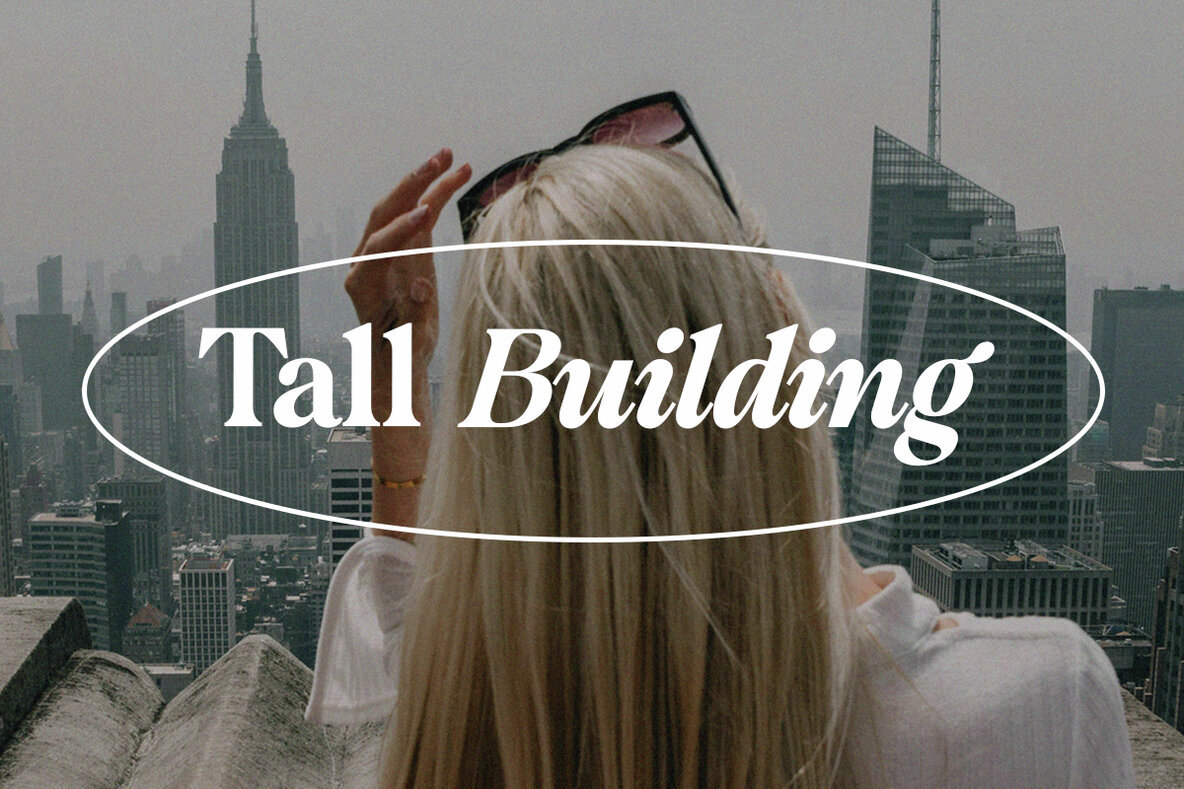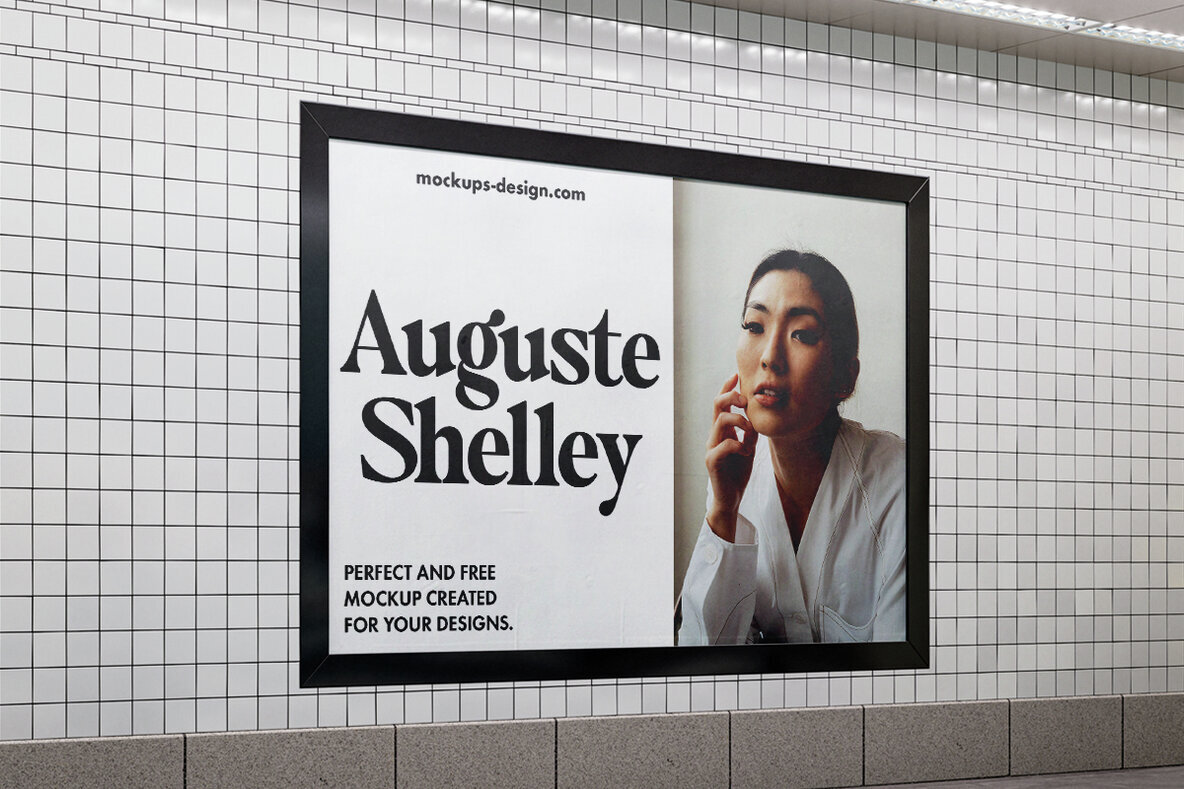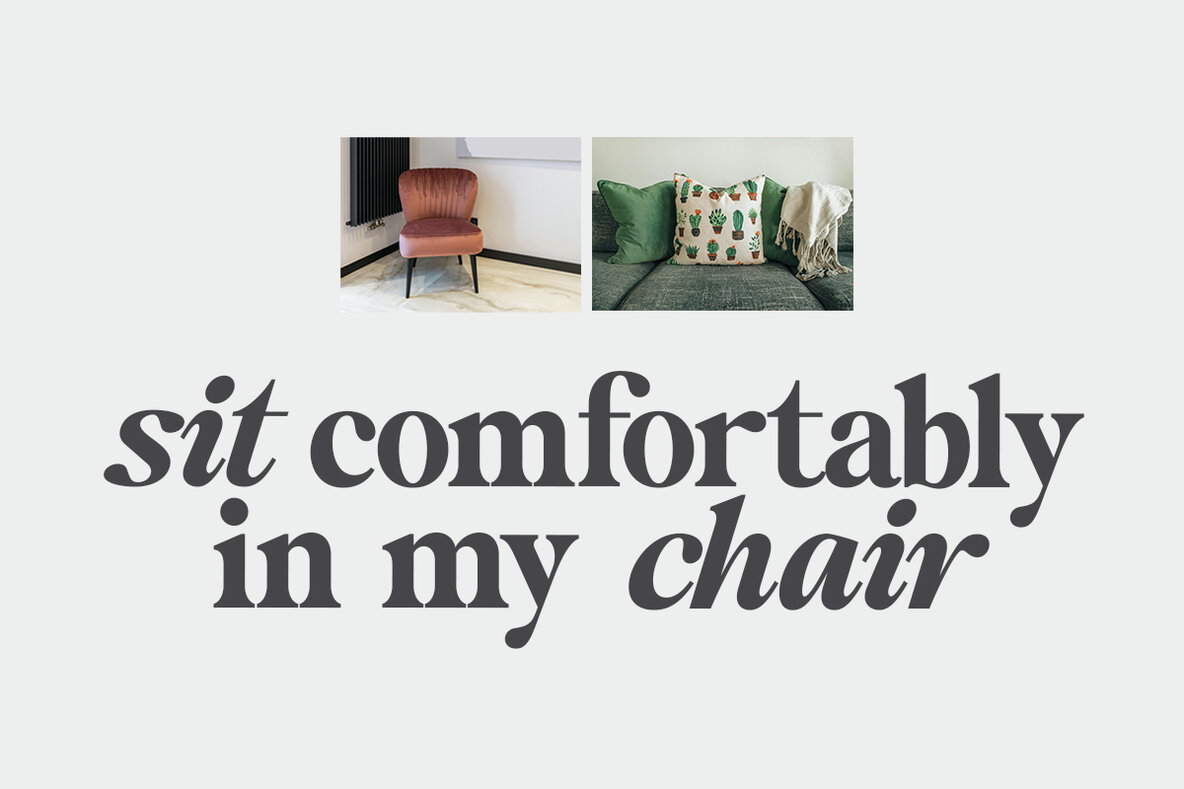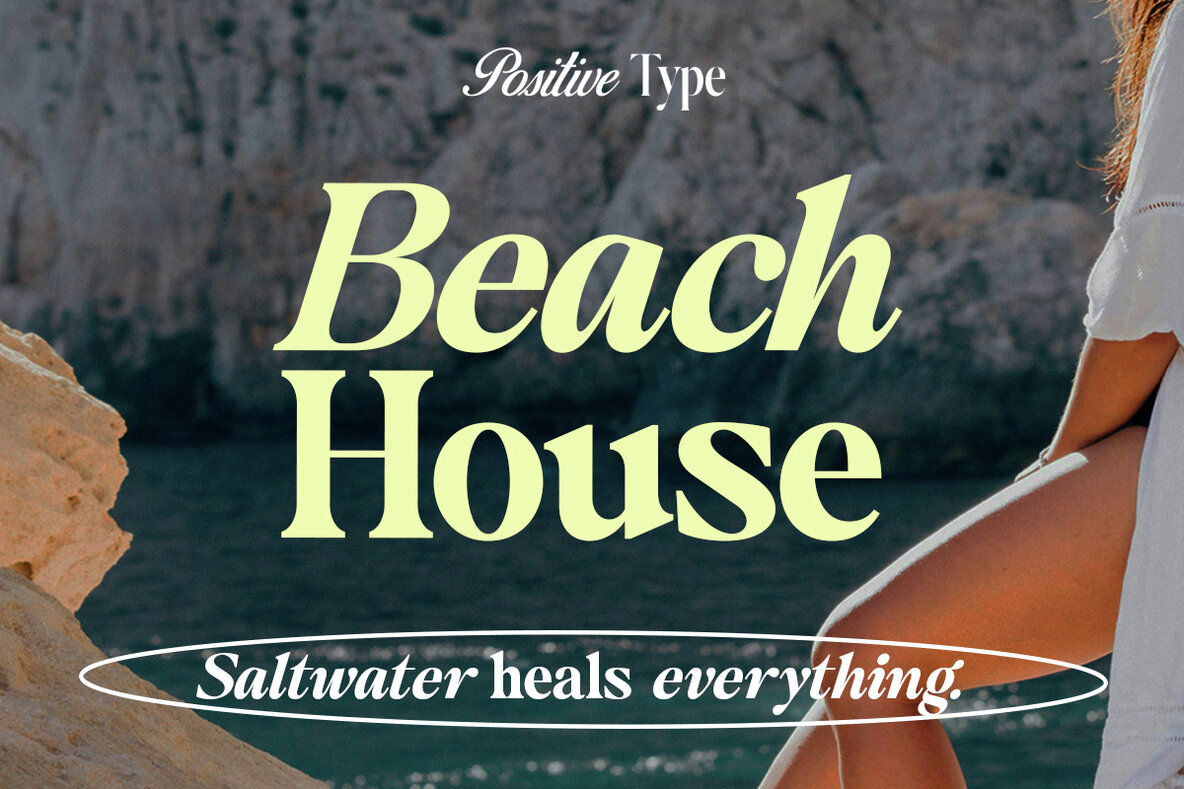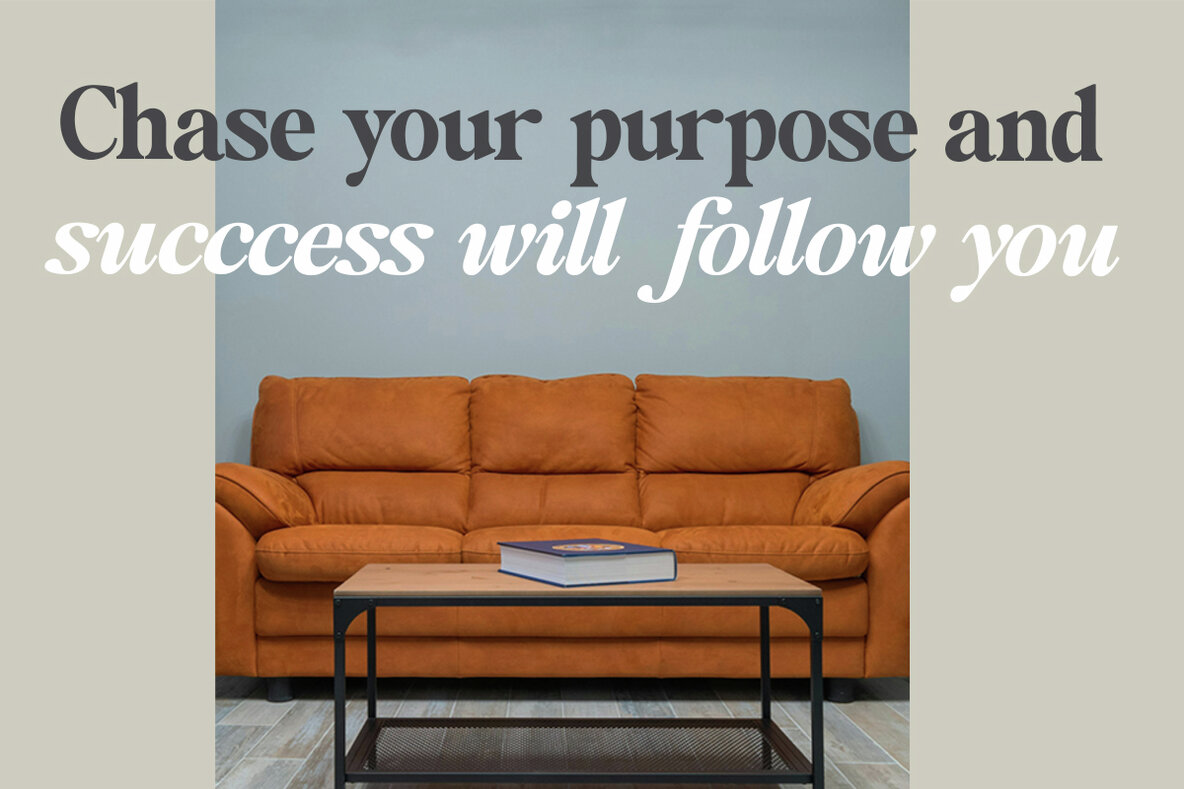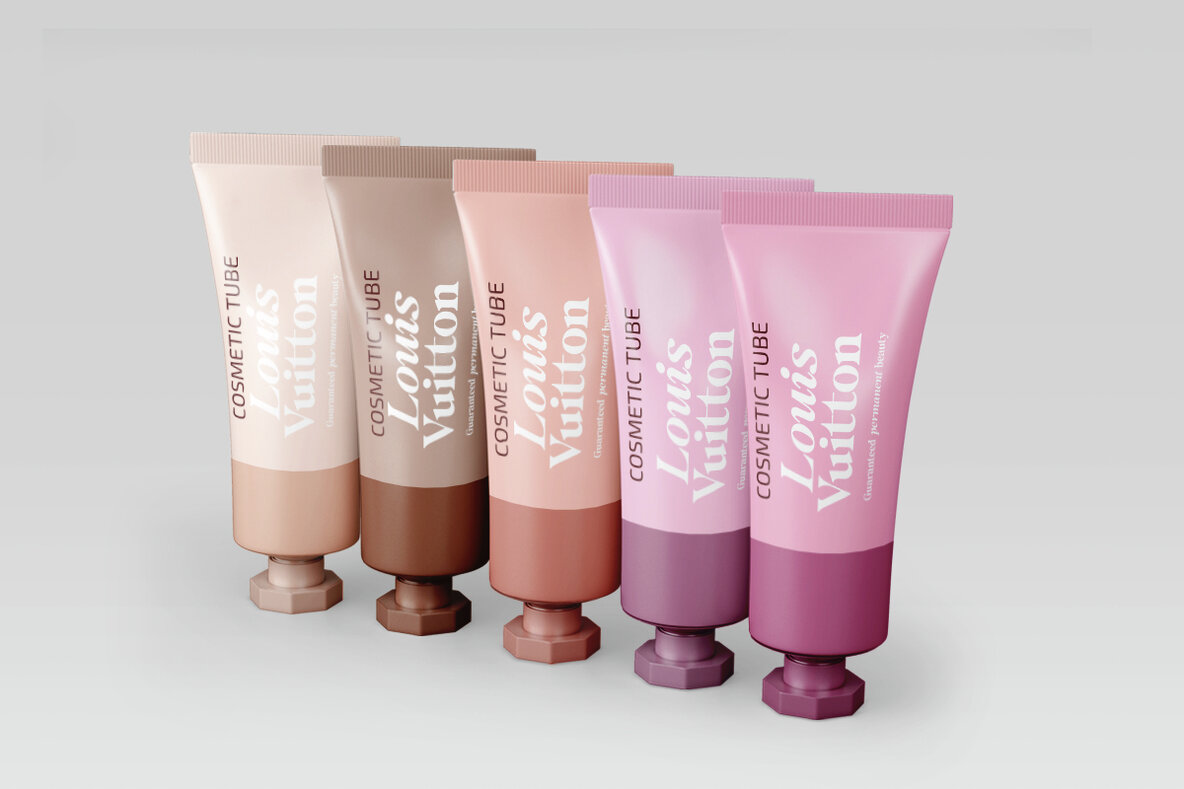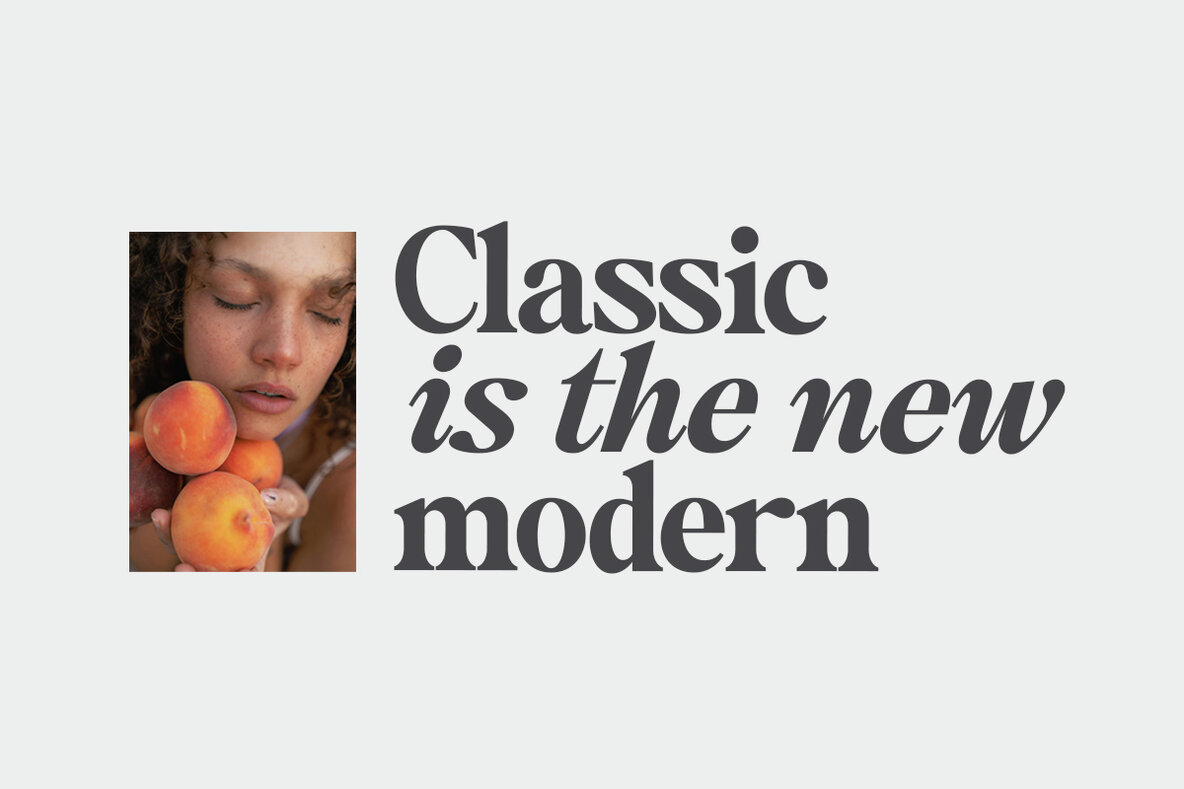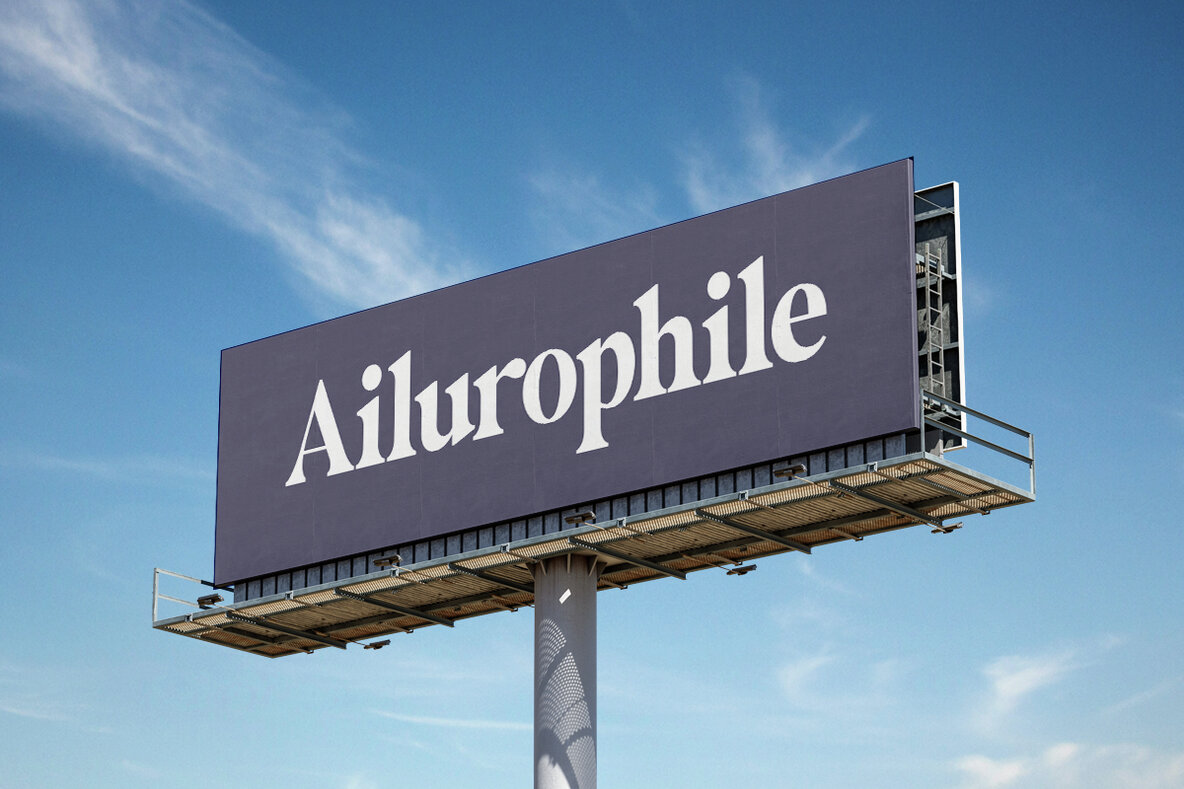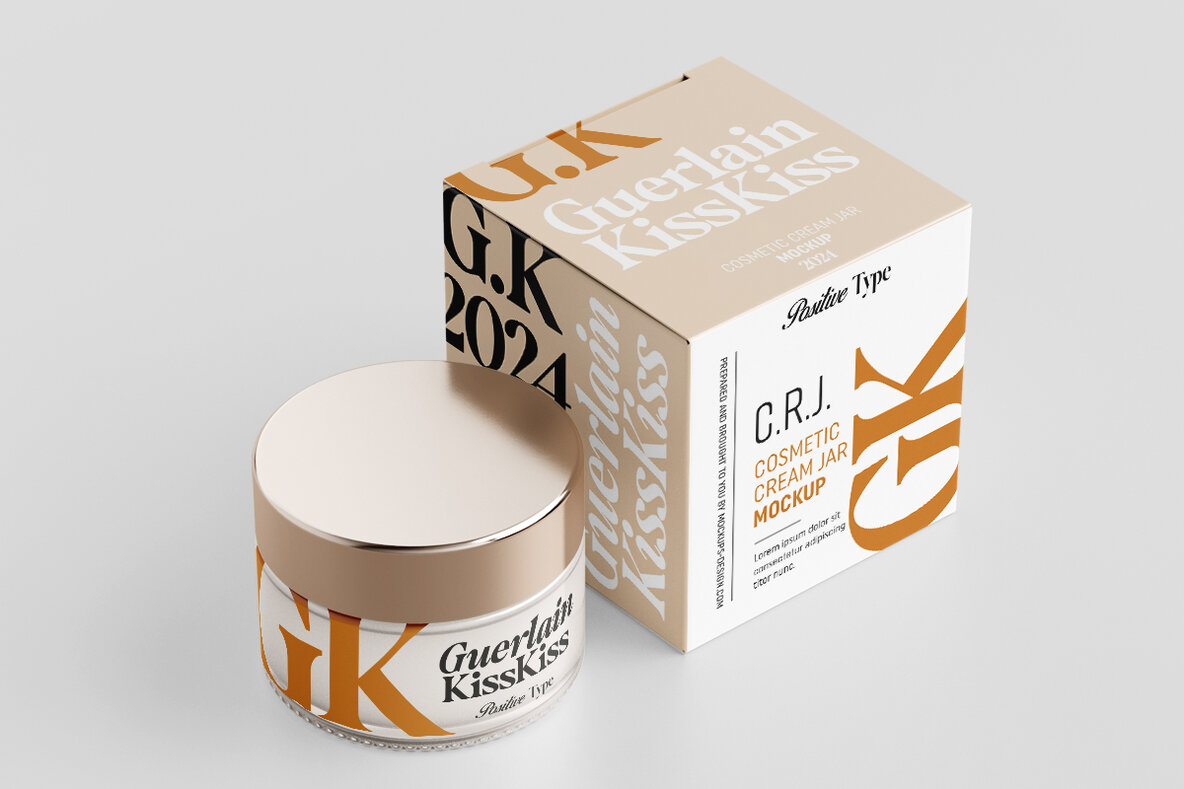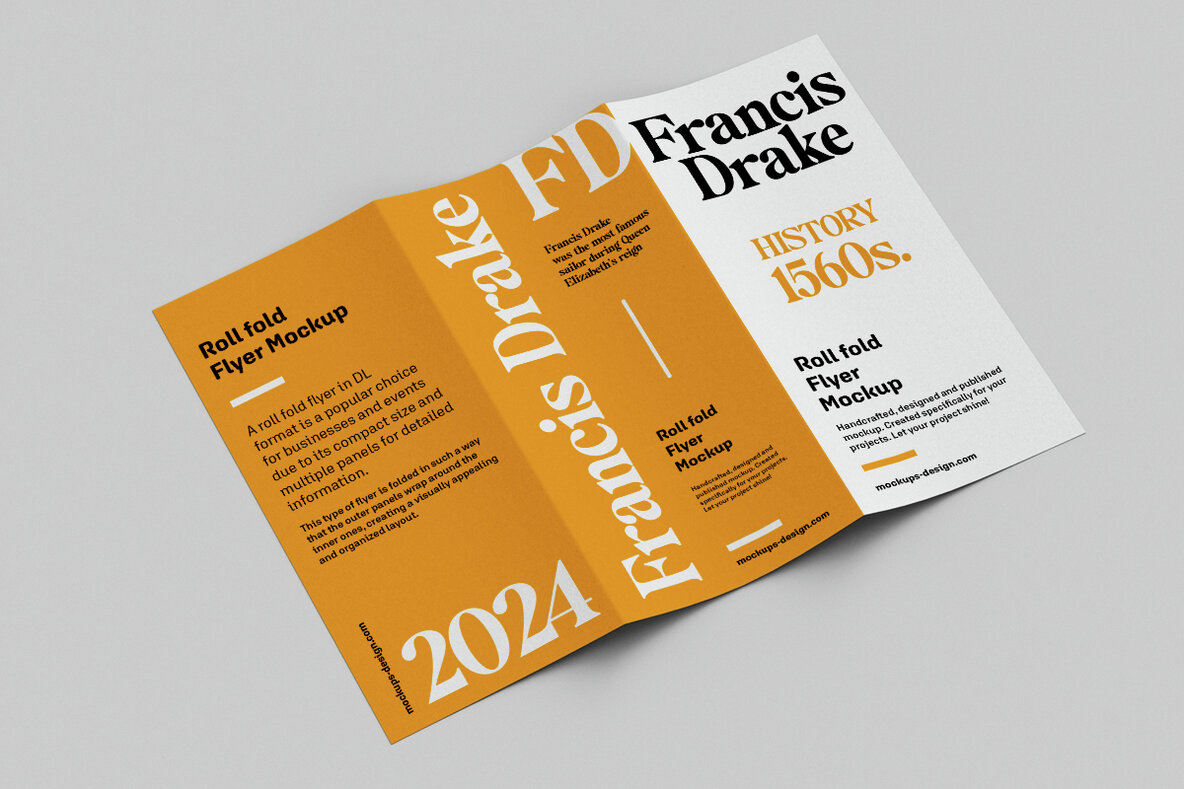
Jim Wollins Font
Introducing Jim Wollins, a versatile typeface that blends the elegance of a serif font with a modern and playful flair. Perfect for sophisticated designs, Jim Wollins is ideal for creating layouts that evoke the charm of the 60s and 70s. This stylish font features both Regular and Italic versions, providing fine details that enhance its overall appeal.
Jim Wollins offers a chic and contemporary touch to any project, making it suitable for branding, editorial layouts, and other design applications. Its sleek and exotic characteristics contribute to a fashionable brand identity, ensuring your designs stand out with a classy, yet playful, touch.